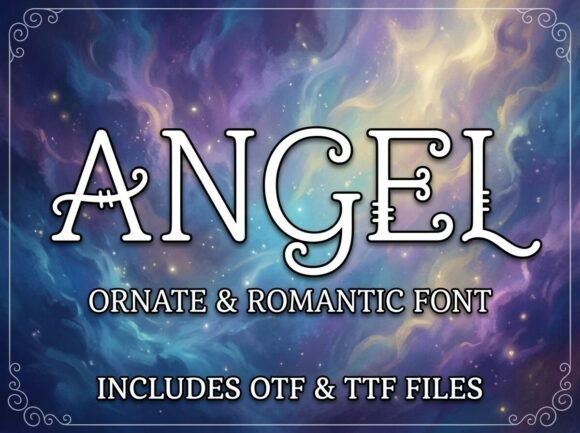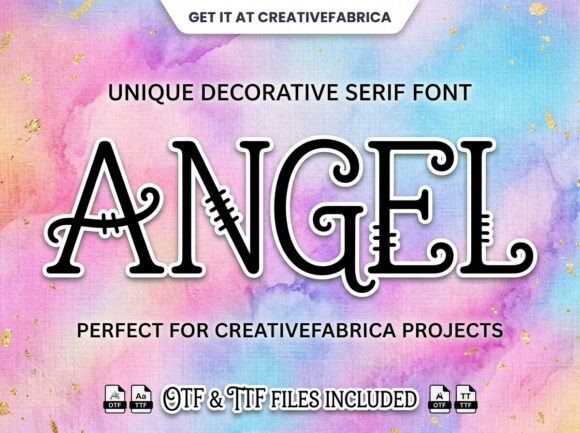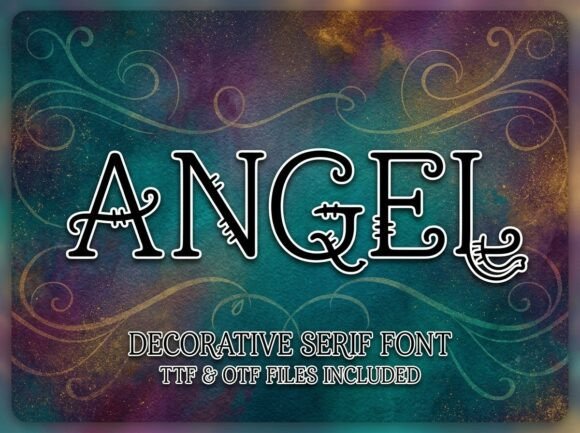
Introducing Angel Font: Elevate Your Designs with a Stunning Decorative Display Font
Are you tired of using the same old fonts in your designs? Do you want to add a touch of elegance and sophistication to your projects? Look no further than Angel Font, a breathtaking decorative display font that’s sure to turn heads. In this article, we’ll dive into the features and benefits of Angel Font, and explore how it can elevate your designs to new heights.
Angel Font is a stunning decorative display font designed to be the center of attention. With its unique artistic elements and strong visual personality, this font is perfect for creators who want to break away from the ordinary. Whether you’re working on a bold headline, artistic logo, or creative packaging, Angel Font is the perfect choice. Its versatility and professional finish make it an excellent addition to any design project.
Before making a purchase, it’s essential to note that Angel Font is an ALL-CAPS (Uppercase Only) display typeface. This means that it does not include lowercase letters. Specifically designed for high-impact headlines, logos, and decorative initials, every letter in Angel Font is a work of art. This unique design approach allows for maximum visual impact and makes it perfect for attention-grabbing applications.
Angel Font is an excellent choice for designers and crafters looking to add a touch of elegance and sophistication to their projects. Whether you’re working on:
- Logos and branding: Create a lasting impression with a unique and memorable logo that showcases your brand’s personality.
- Headlines and titles: Add a touch of drama and flair to your headlines and titles with Angel Font’s bold and eye-catching design.
- Packaging and labels: Elevate your packaging and labels with a professional and polished finish that sets your product apart.
- Artistic projects: Bring your artistic vision to life with Angel Font’s unique and creative design.
Tips for Using Angel Font
To get the most out of Angel Font, here are a few tips to keep in mind:
- Use it sparingly: Due to its bold and eye-catching design, Angel Font is best used sparingly to maximize its impact.
- Experiment with colors and textures: Don’t be afraid to experiment with different colors and textures to add depth and interest to your designs.
- Pair it with complementary fonts: Pair Angel Font with complementary fonts to create a unique and visually appealing typography combination.
In conclusion, Angel Font is a stunning decorative display font that’s perfect for designers and crafters looking to elevate their designs. With its unique artistic elements, strong visual personality, and professional finish, this font is sure to turn heads. Whether you’re working on a bold headline, artistic logo, or creative packaging, Angel Font is an excellent choice. So why wait? Download Angel Font today and take your designs to new heights!